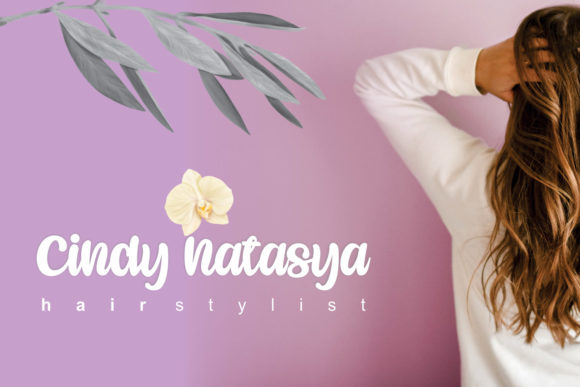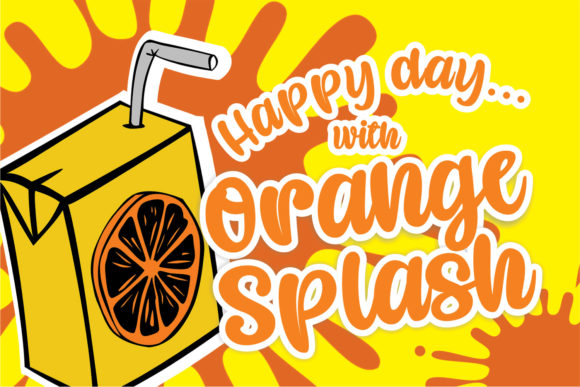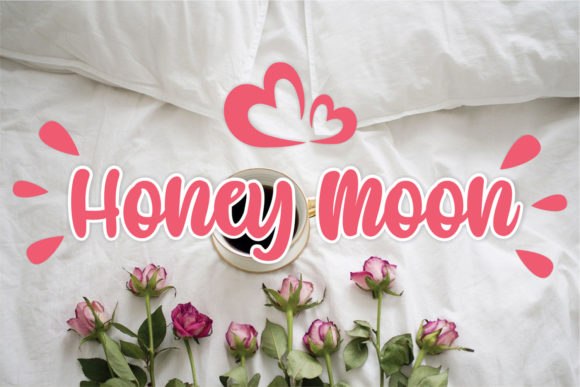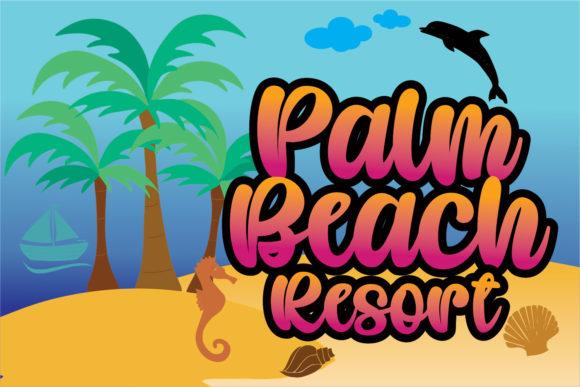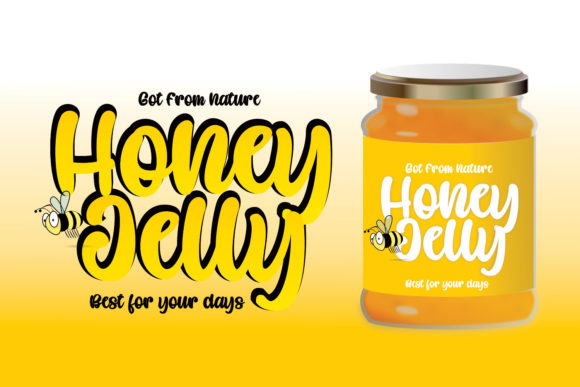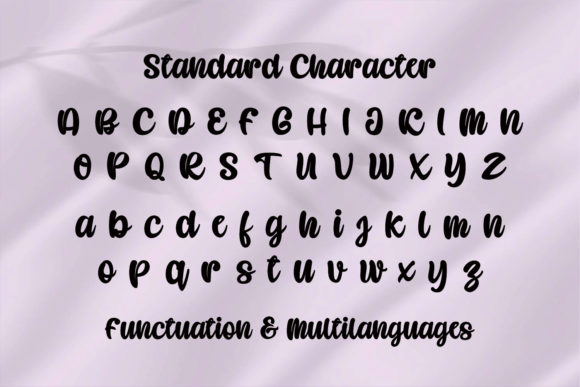
The Sweet Spot for Designers: Discover the Allure of Caramel Candy Font
Have you ever been brainstorming for hours, staring at a blank page, and then suddenly, the perfect idea strikes you? The creative spark is ignited, and you can’t wait to bring your vision to life. For designers, moments like these are what make all the hard work worth it. And, sometimes, all it takes is the right font to take your design to the next level.
Enter the Caramel Candy Font, a stunning, flowing handwritten font that exudes elegance and sophistication. This beautiful font is perfect for adding a touch of whimsy and personality to your projects, from wedding invitations to social media graphics. With its distinct and timeless style, the Caramel Candy Font is an invaluable addition to any designer’s toolkit.
Caramel Candy Font Key Features
- Font Style: A playful, cursive script font designed to resemble hand-drawn candy font.
- Unique Characteristics: Distinctive, whimsical design elements, including swashes, flourishes, and irregular letterforms that evoke the feeling of hand-painted candy.
Caramel Candy Font Review
Caramel Candy Font is a whimsical and playful font that adds a touch of sweetness to any design project. I must say, I’m quite fond of its unique character. Here are some of the things that work well:
- ✨ Uniqueness: Caramel Candy Font has a distinct personality that sets it apart from other fonts.
- ✨ Whimsy: The font’s playful nature makes it perfect for designs that need a touch of whimsy and fun.
- ✨ Versatility: Caramel Candy Font can be used for a wide range of design projects, from children’s books to packaging designs.
- ⚠️ Readability: In certain situations, the font can be difficult to read, especially when used in large blocks of text.
- ⚠️ Formality: Caramel Candy Font may not be suitable for formal or professional designs, as it can come across as too playful or childish.
Overall, I think Caramel Candy Font is a great addition to any designer’s toolkit. While it may have some limitations, its unique personality and versatility make it a great choice for the right project. With some careful consideration and use, Caramel Candy Font can add a touch of magic to any design.
The Caramel Candy Font is ideal for:
- Bakery and dessert branding.
- Food and beverage packaging.
- Wedding invitations and decorations.
- Special occasion graphics.
Remember to pair the Caramel Candy Font with a contrasting color scheme to make your design stand out.